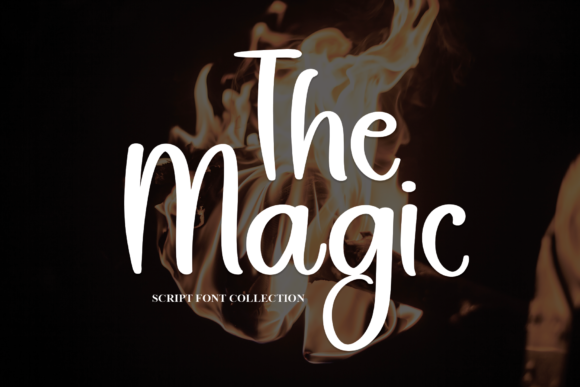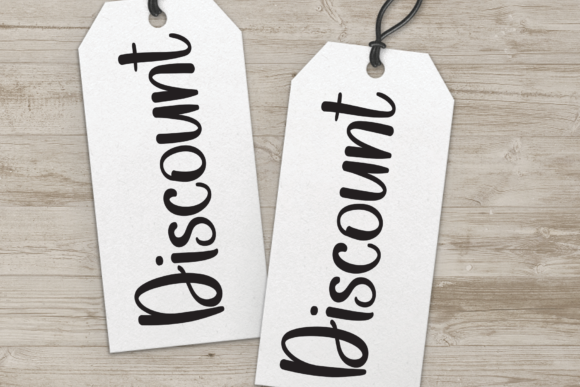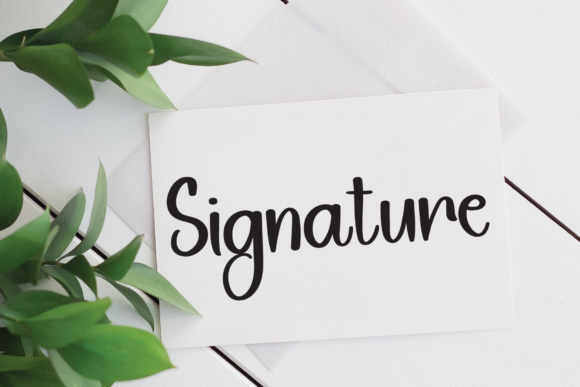
The Magic Font
About The Magic Font
Delight in the charm of a script font that effortlessly encapsulates sweetness, whimsy, fluidity, and a delicate thinness. With characters gracefully dancing along a baseline, this font is poised to infuse a lavish touch into every design project you choose to undertake!
This script font is a visual symphony, radiating sweetness through a captivating dance of characters. Each letter moves seamlessly along the baseline, creating a rhythmic visual spectacle that is both enchanting and playful. The fluid strokes contribute to the font’s overall elegance, making it an ideal choice for projects that demand a perfect blend of sophistication and fanciful charm.
Imagine the impact of this script font on a wedding invitation, where the letters elegantly twirl and pirouette, setting the stage for a celebration filled with grace and charm. Picture it adorning high-end product packaging, instantly elevating the visual appeal with an air of exclusivity and refined aesthetics that resonate with discerning consumers.
The font’s thin and delicate lines further enhance its visual appeal, ensuring a lightweight and versatile quality. Whether applied to branding, logos, or editorial design, its enchanting characteristics remain prominent, offering a seamless and delightful reading experience across various mediums, be it digital or print.
This whimsical script font transcends conventional typography; it’s a visual narrative where characters come to life in a dance, making a bold and captivating statement in design communication. As technology and design evolve, the timeless allure of this font endures, capable of infusing a touch of magic into a diverse range of creative projects.
In summary, this sweet, whimsical, fluid, and thin script font, with characters dancing along a baseline, is more than a typographic choice—it’s an artful addition. As you embark on your creative journey, consider the opulent and sophisticated touch this font can bring to your projects, elevating them with a harmonious blend of visual appeal and aesthetic delight.